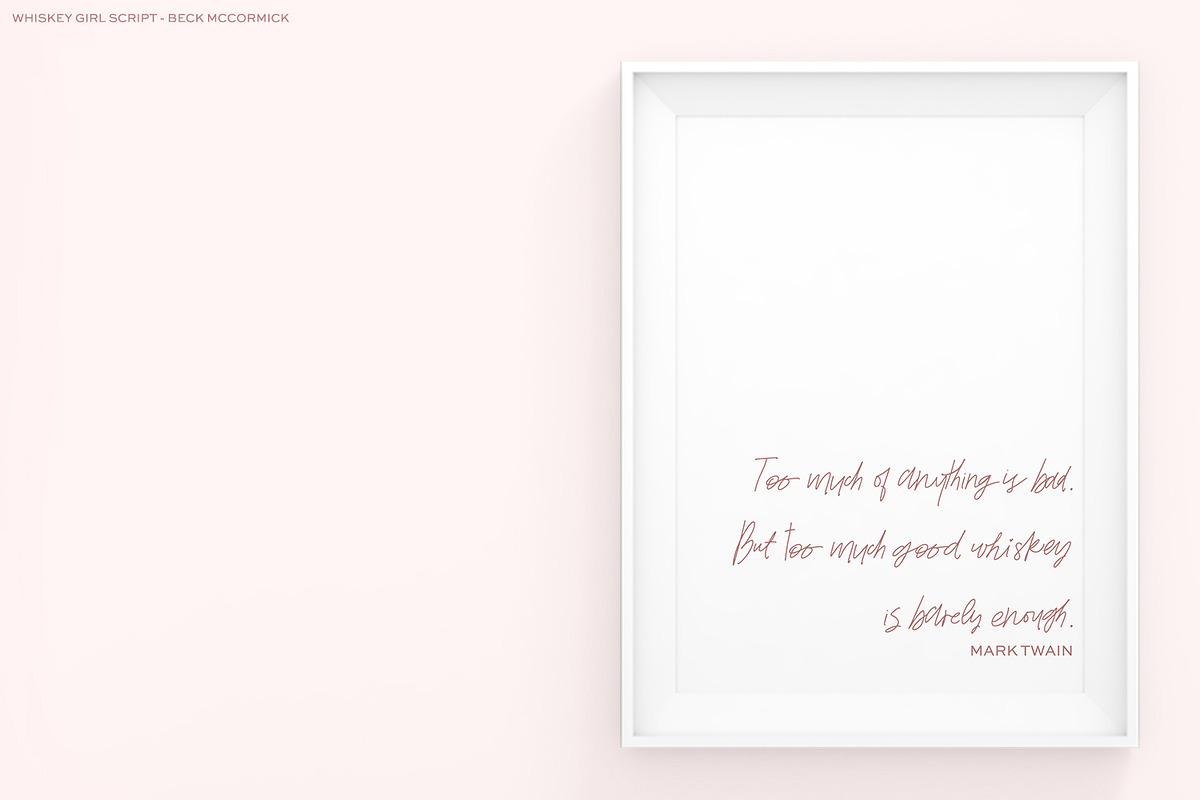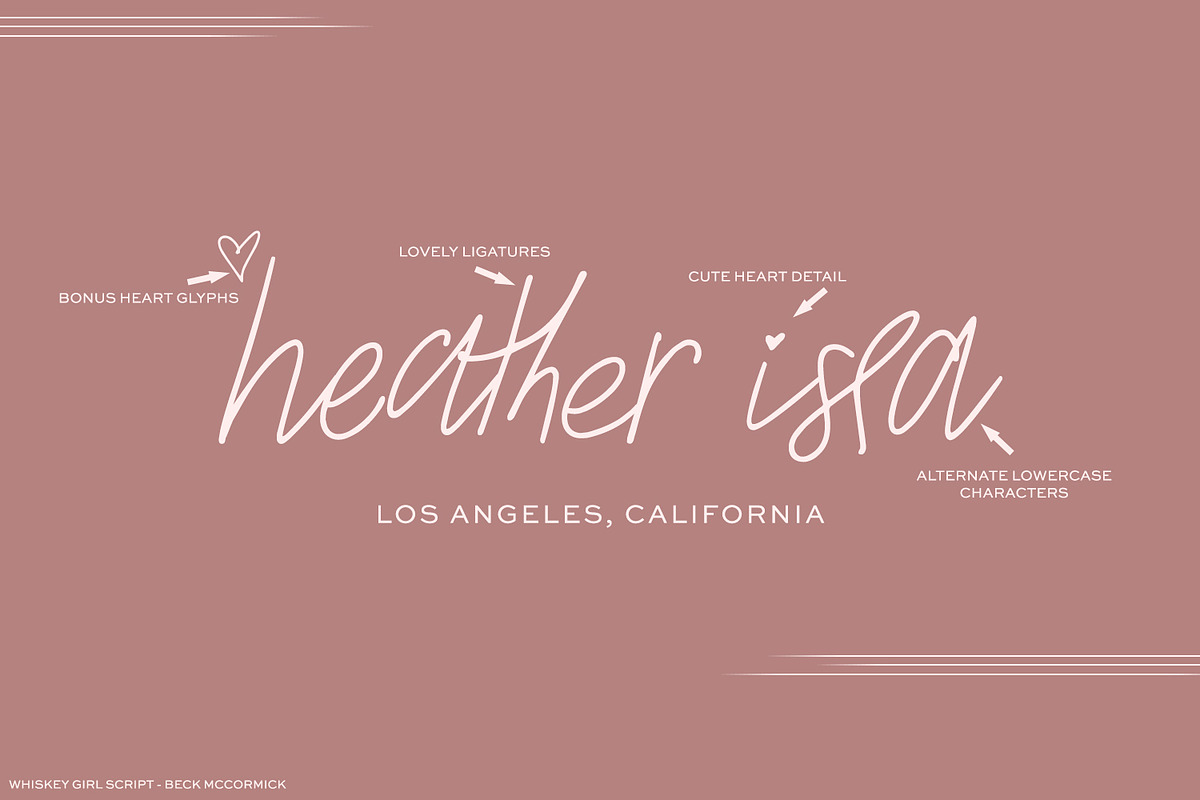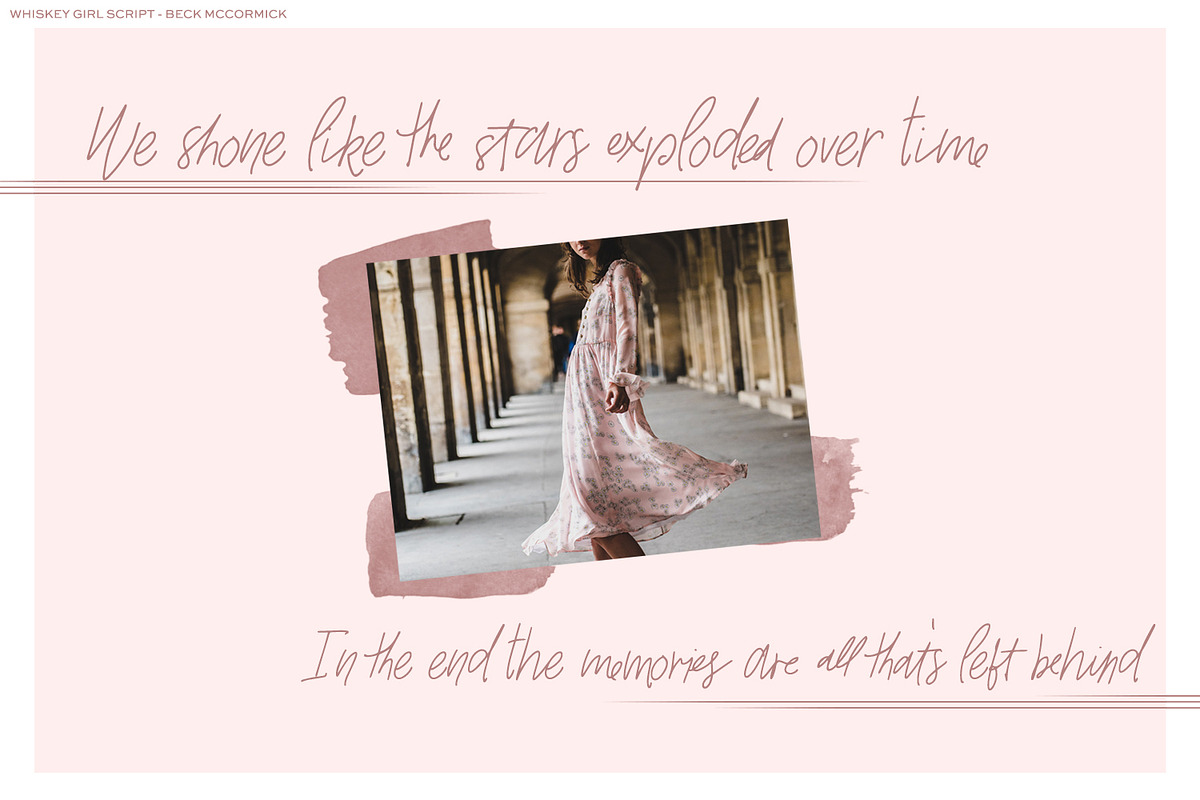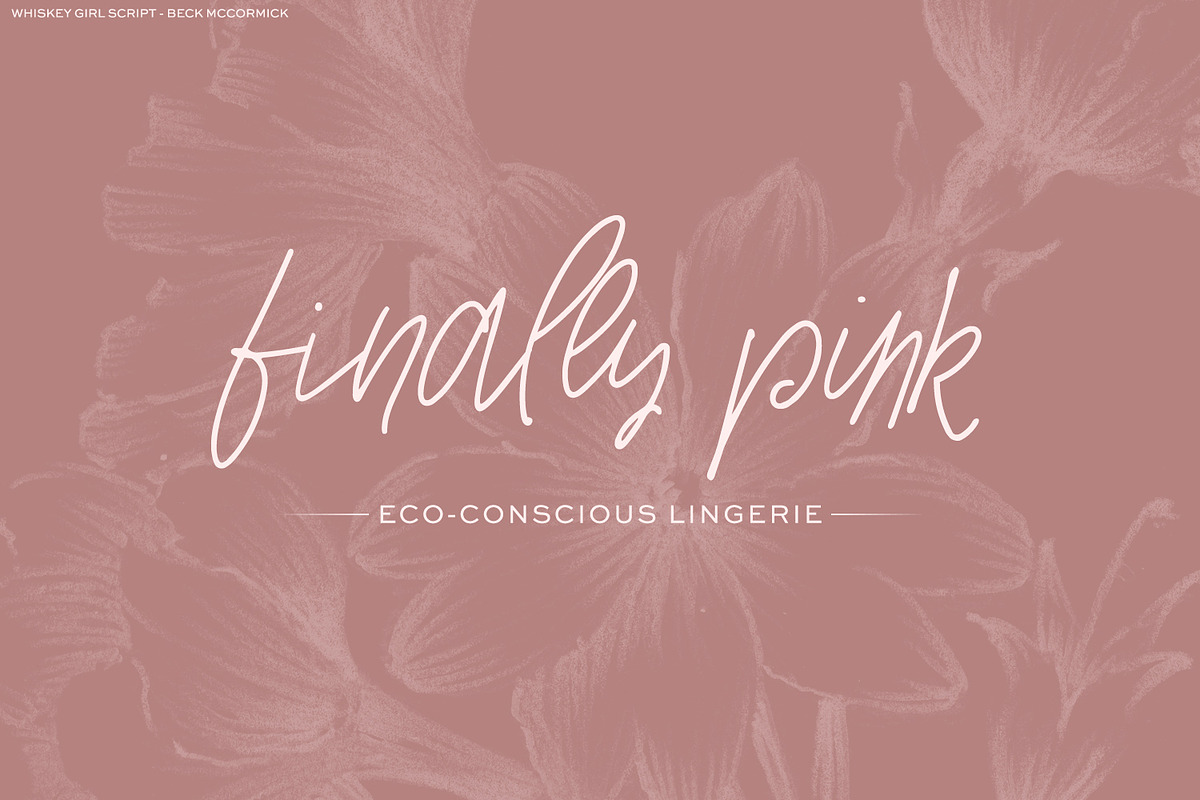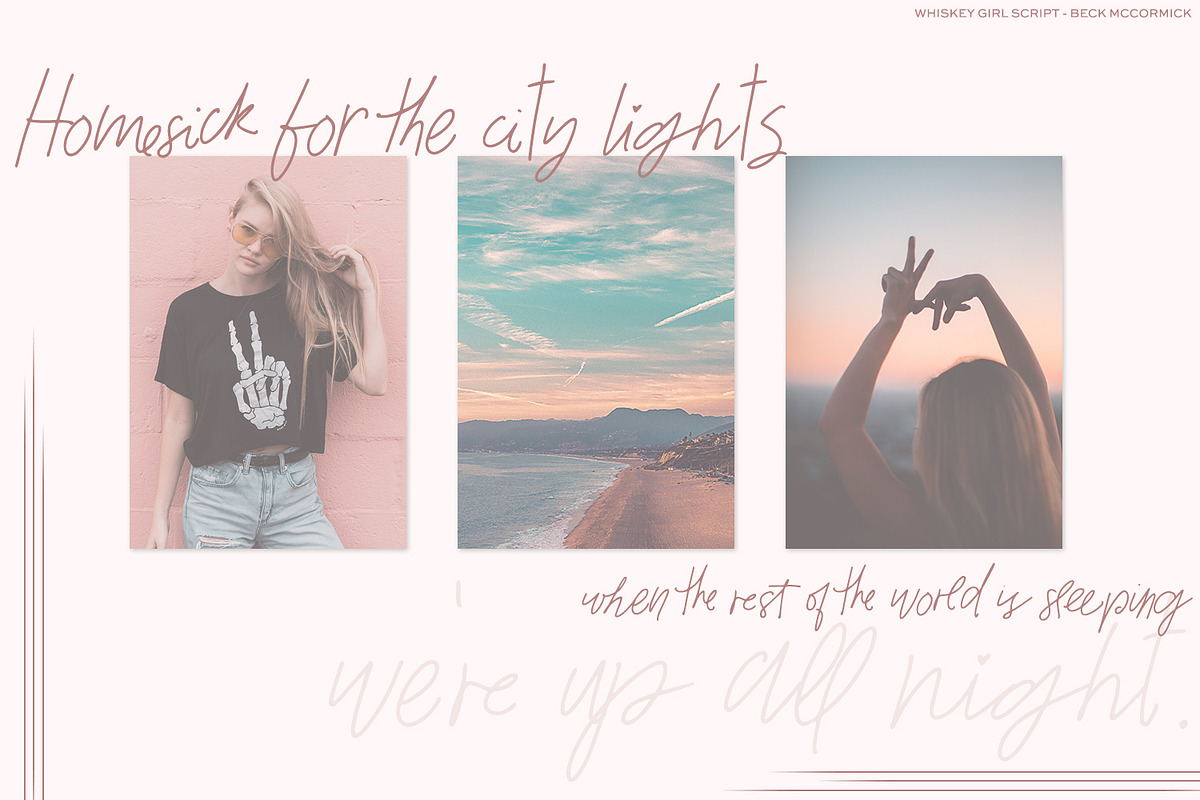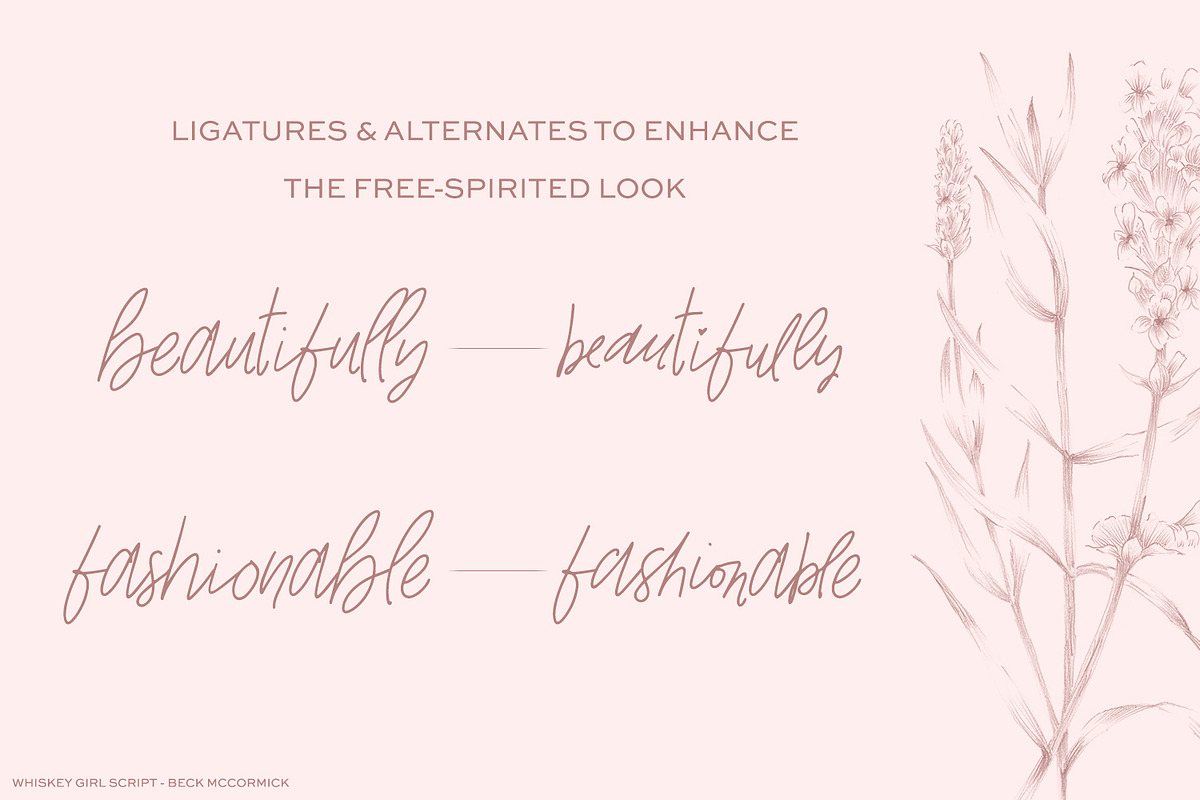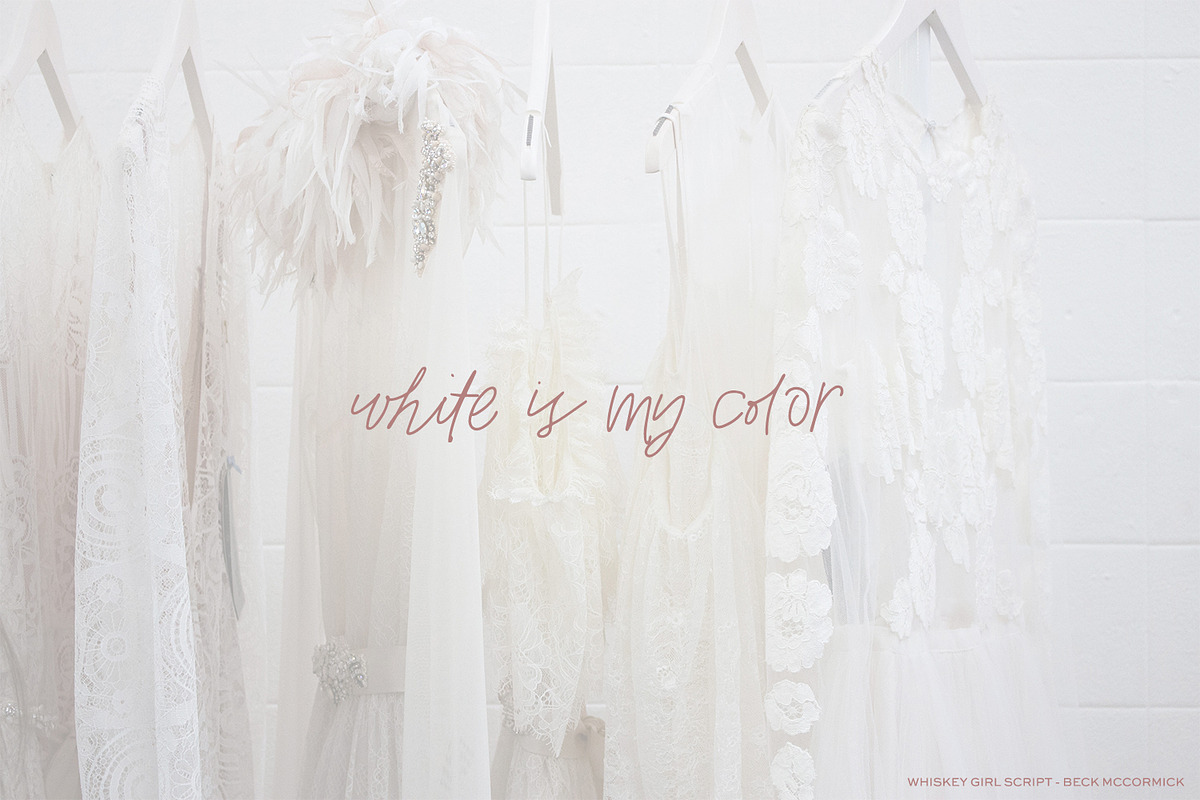
Whiskey Girl Script Font
Whiskey Girl is a free-spirited, carefree signature font, packed full of ligatures that mirror handwriting.
Whiskey Girl features a second alternate lowercase alphabet, cute little heart details dotting the i & j letters, and a few heart glyphs just because. There are also 101 ligatures, & a few alternate ampersands. Whiskey Girl is PUA-encoded, and has Western European language support.
Design your relaxed, casual brand with Whiskey Girl, mock-up handwritten notes, or use on your website — surely a sassy yet approachable addition to your font arsenal.
Whiskey Girl pairs well with Sweet Sans & Theory of a Deadman lyrics.